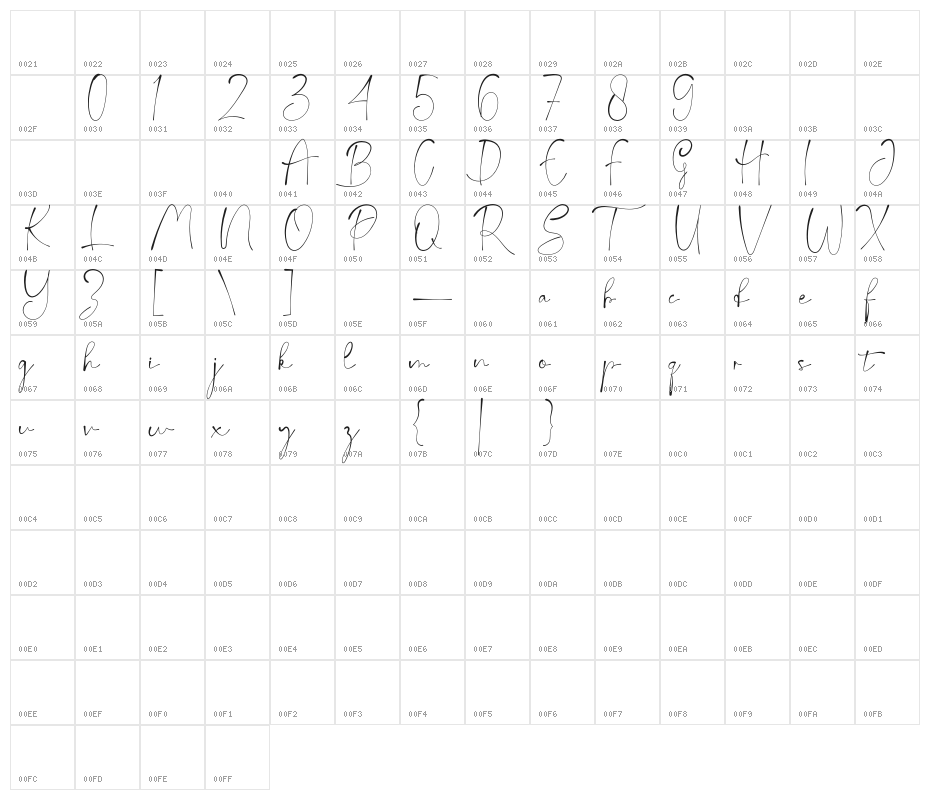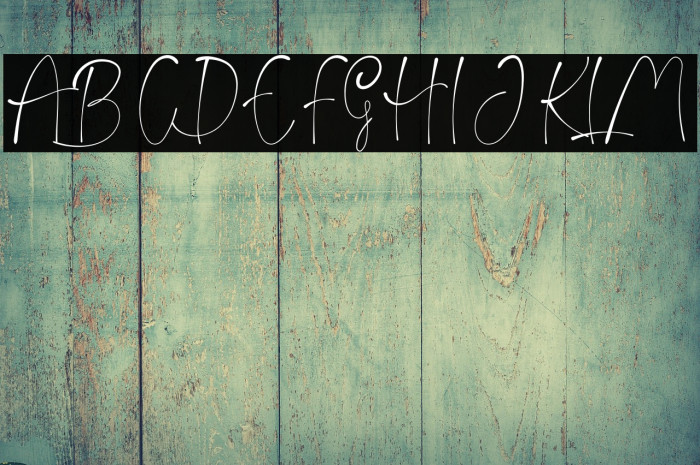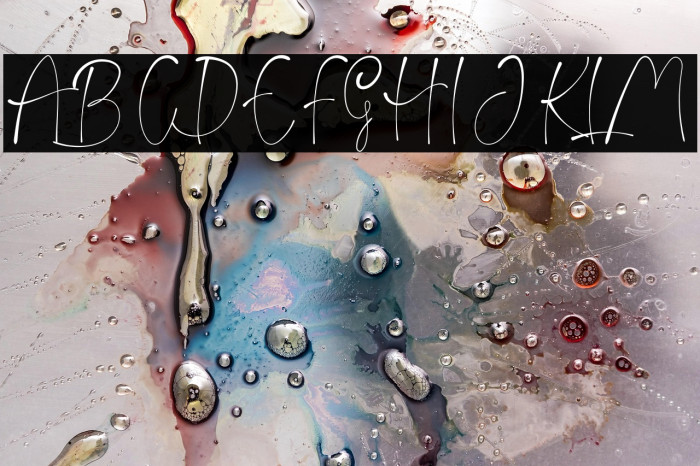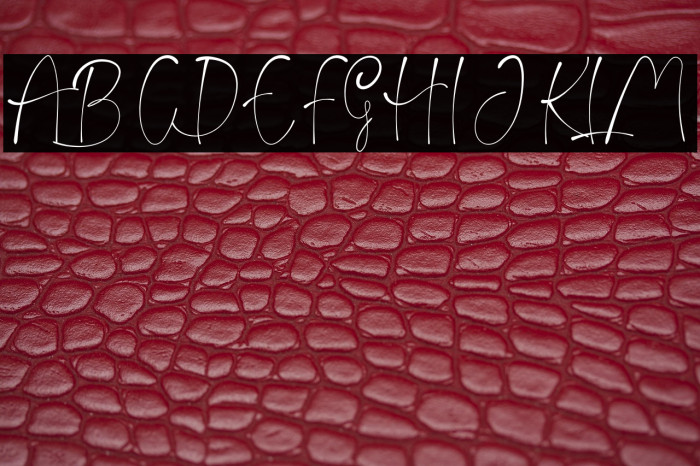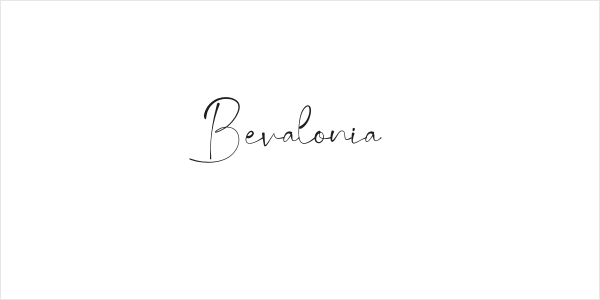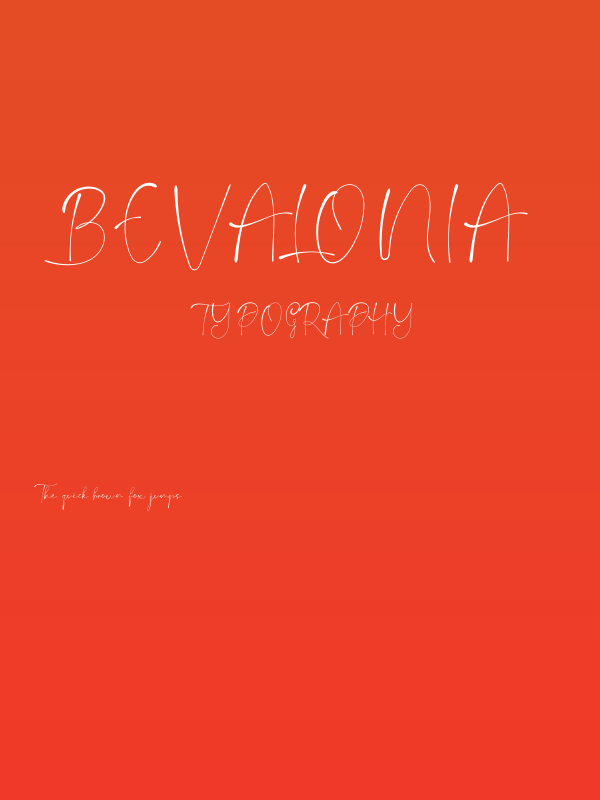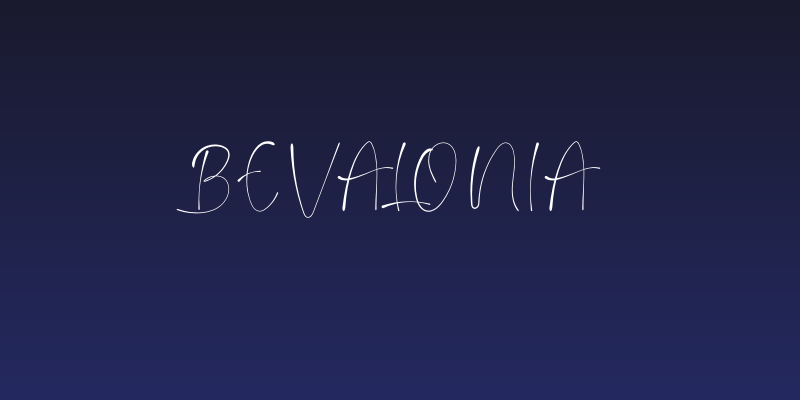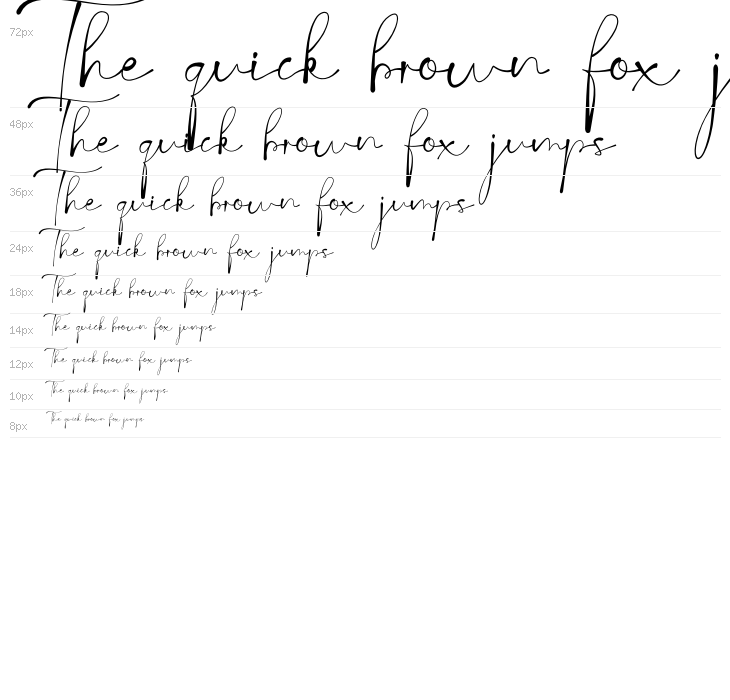
Bevalonia Font
Bevalonia Description
This font features a delicate and elegant script style, characterized by its flowing, interconnected letters that mimic the fluidity of handwriting. The uppercase letters are tall and slender, with a graceful curve that adds a touch of sophistication. The lowercase letters maintain a consistent style, with smooth transitions and rounded edges that enhance readability. The numerals are distinct yet harmonious with the overall design, featuring a similar fluidity and elegance. Special characters are seamlessly integrated, maintaining the font's cohesive aesthetic. This font exudes a sense of refinement and artistic flair, making it suitable for projects that require a personal and stylish touch.
| Overall Style | Elegant |
| Use Case | Logos, Invitations, Personal Branding |
| Proposed Projects | Ideal for wedding invitations, greeting cards, personal branding, and elegant packaging designs. |